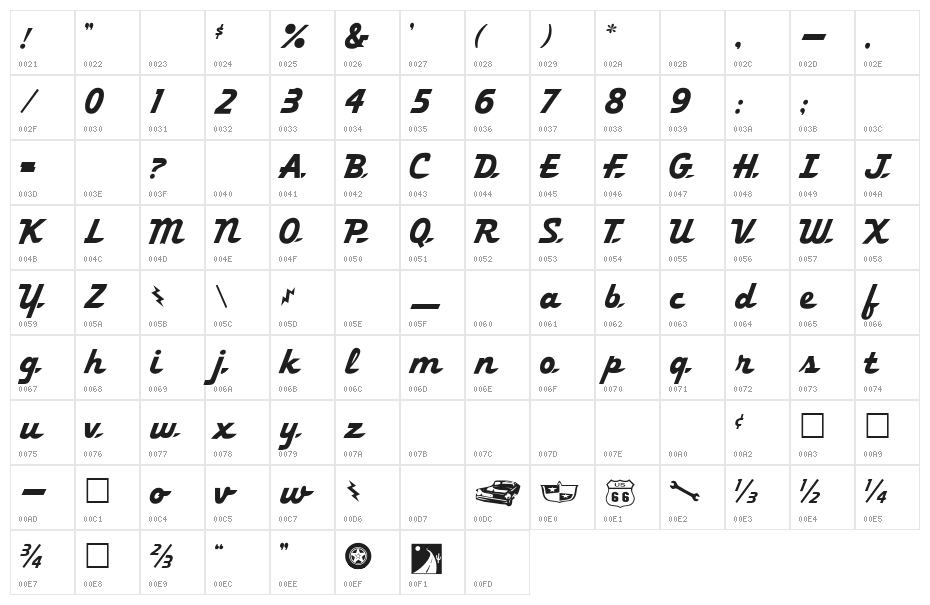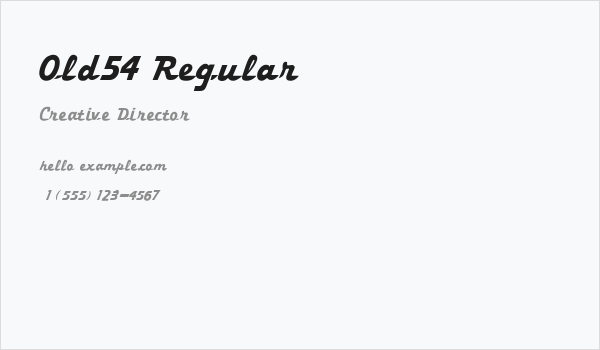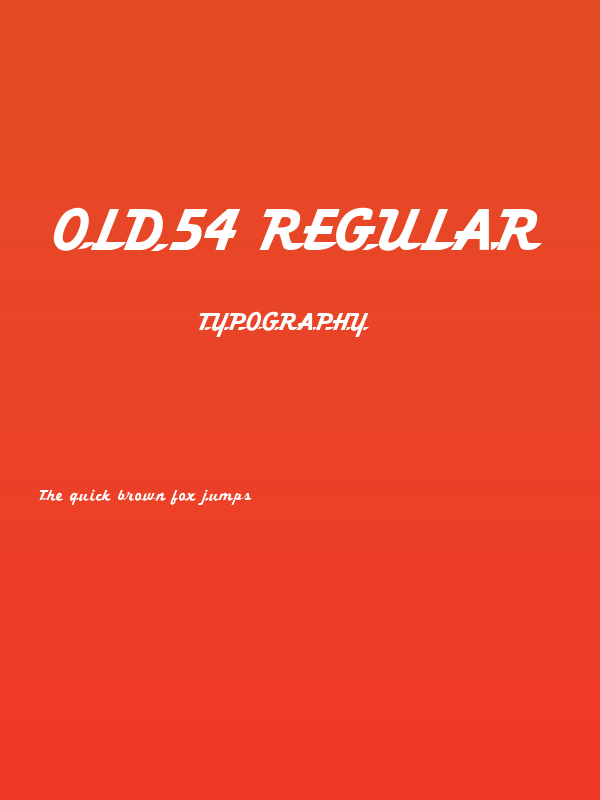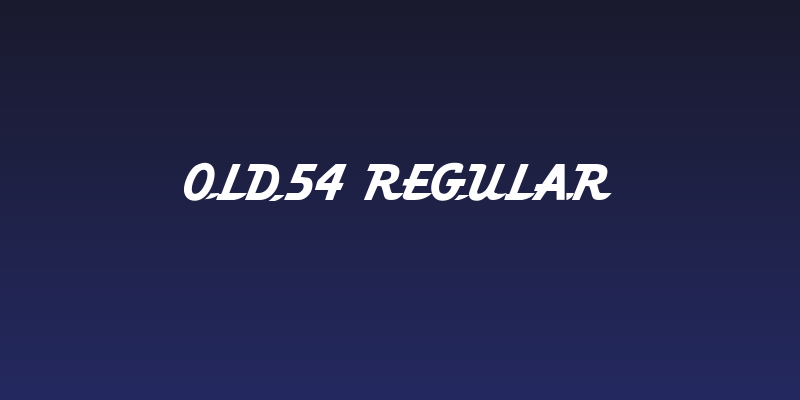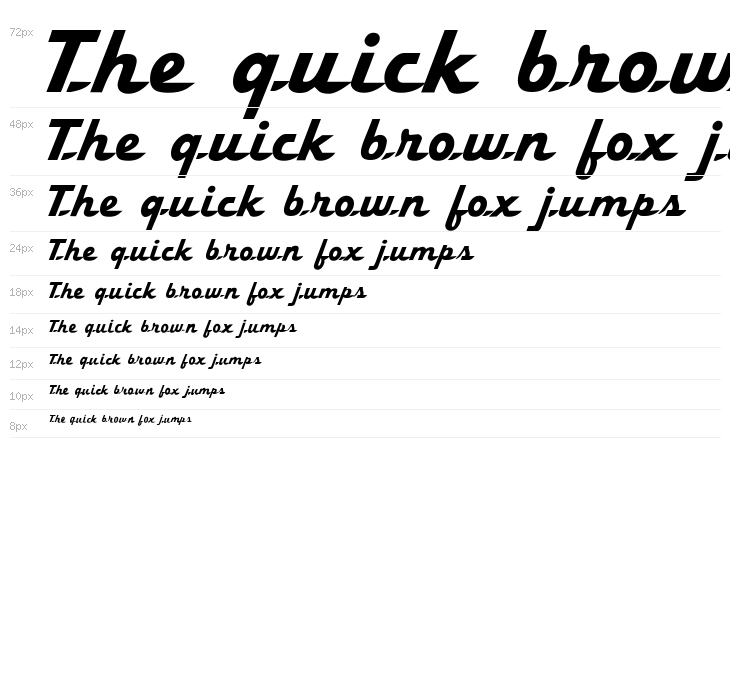
Old54 Regular Font
| Progetti proposti | Ideal for retro-themed posters, vintage advertisements, branding, and signage that require a bold and energetic look. |